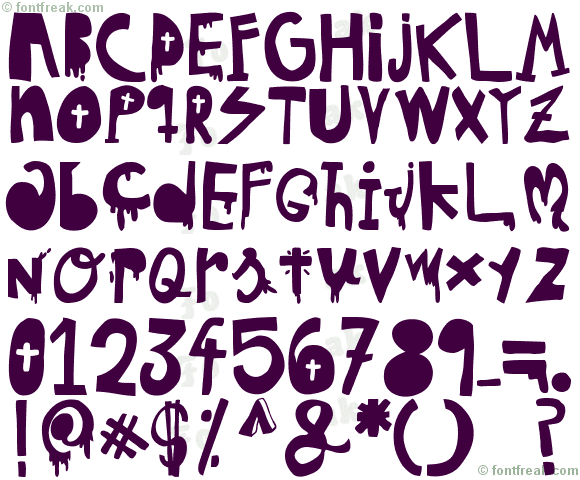
woodcutter hungry pig
About woodcutter hungry pig
The woodcutter hungry pig font is a distinctive display typeface created by woodcutter Manero in 2013. This unique font embodies a playful yet rugged aesthetic, making it an excellent choice for a variety of creative projects. As a display font, it leans towards a decorative style with bold, irregular letterforms that capture attention. The stroke weight varies throughout the characters, giving it a dynamic feel, while the contrasting thick and thin sections create visual interest. The spacing between the letters is slightly tight, enhancing its impact without compromising readability.
This font is particularly well-suited for use in wedding invitations where a whimsical touch is desired, movie posters that aim to grab viewers' attention, and restaurant menus that want to convey a fun, casual atmosphere. Additionally, it can be a great choice for children's book covers or merchandise aimed at younger audiences, where a playful and imaginative design is essential. Graphic designers, small business owners, and content creators will find this font to be a versatile option for various branding and promotional materials.
What sets the woodcutter hungry pig font apart is its unique blend of humor and artistry. It stands out with its quirky style, capable of infusing life into any design project. Whether you’re looking to create an eye-catching advertisement or a playful greeting card, this font delivers a sense of personality and charm. For those interested in adding this distinctive typeface to their collection, the woodcutter hungry pig font free download makes it accessible for both personal and commercial use. Embrace the creativity that this font offers and watch your designs come to life.